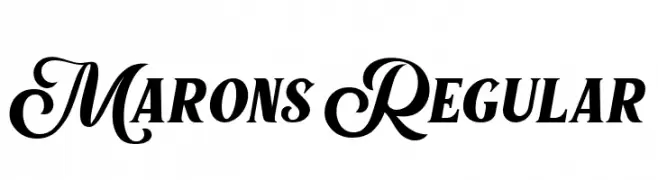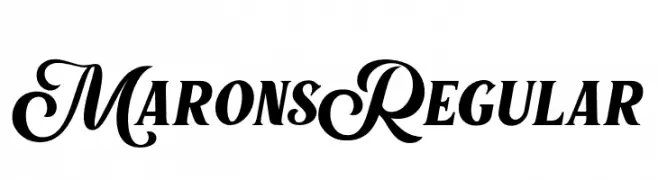
A decorative font with intricate, leaf-like patterns creating a bold and artistic style.
A clean, modern sans-serif font with balanced proportions and a versatile style.
A playful, bold font with a whimsical and cartoonish design.
A bold, dynamic script font with flowing curves and decorative swashes.
A bold, flowing script font with elegant curves and dynamic strokes.
An elegant script font with flowing, interconnected letters and ornate swashes.
A playful, handwritten font with smooth curves and a casual style.
An artistic font with gothic influences and dramatic serifs.